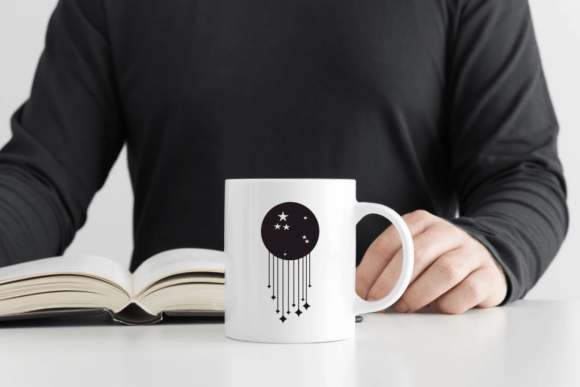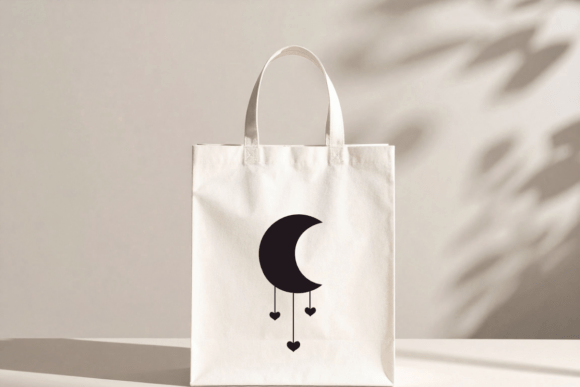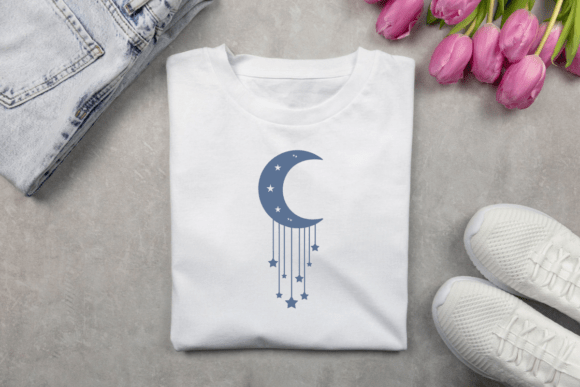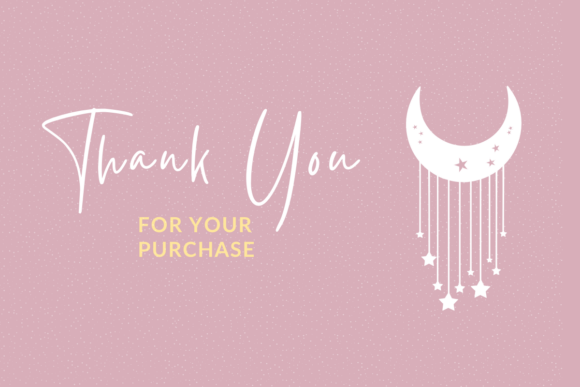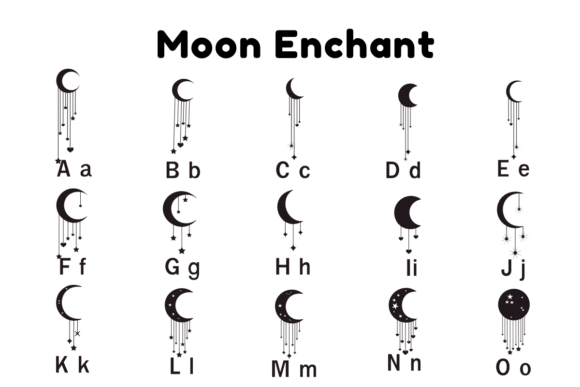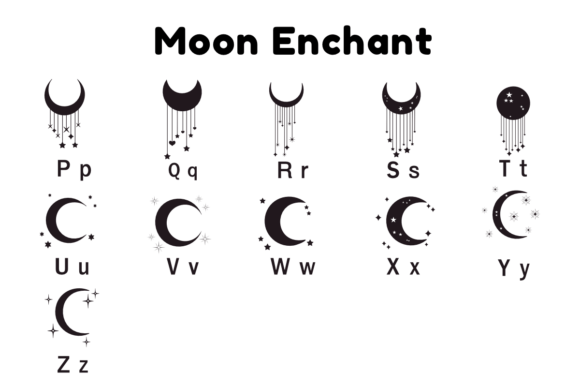
Introduction to Moon Enchant Font
Moon Enchant Dingbats is a mystical dingbat font filled with crescent moons, stars, and hanging celestial charms.
These dreamy, boho-style illustrations are perfect for spiritual designs, astrology themes, moon phase planners, and magical branding Simply type to unlock a set of enchanting vector elements.